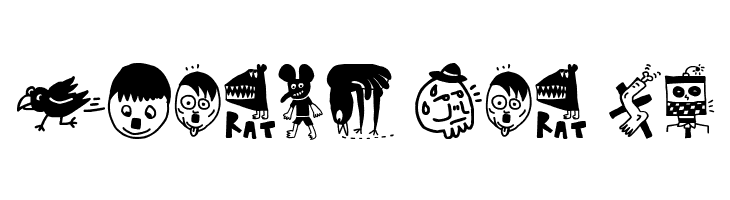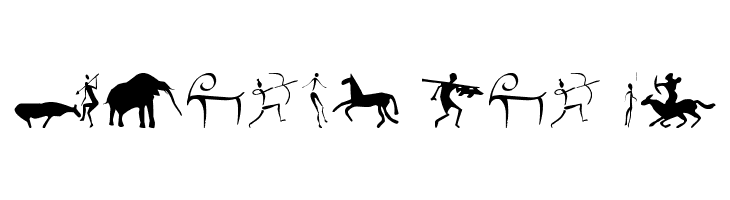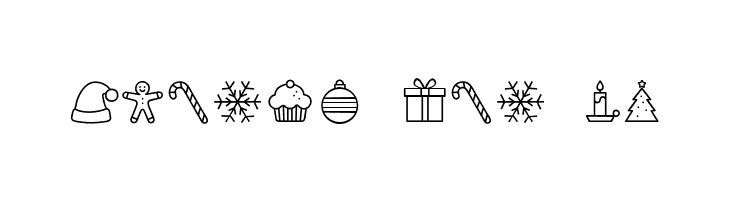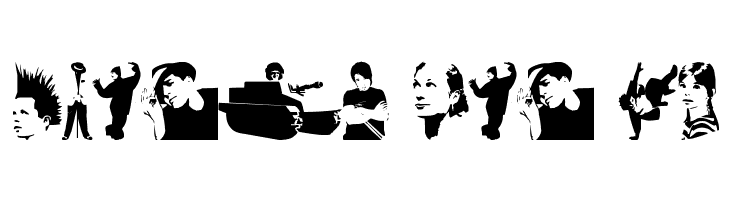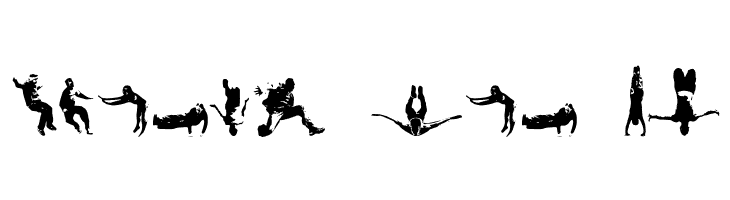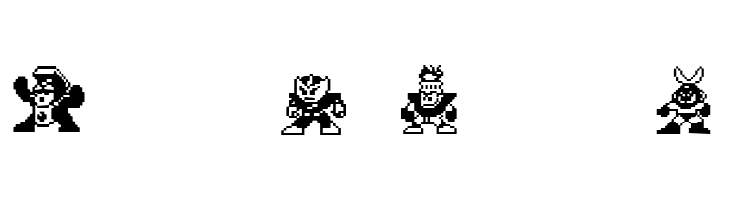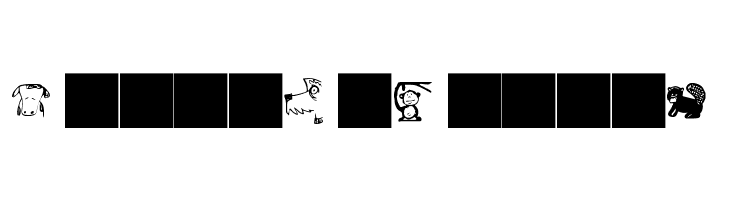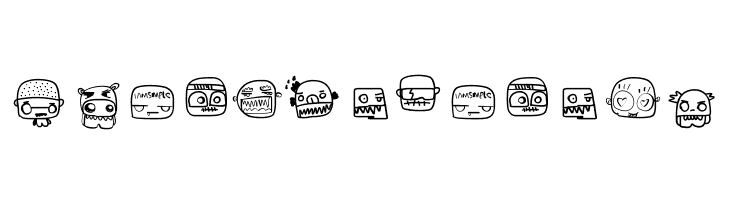
( Woodcutter - woodcutter Manero - www.woodcutter.es )
A whimsical and illustrative font with cartoonish, bold characters.
( Woodcutter - woodcutter Manero - www.woodcutter.es )
A pictorial, hand-drawn font inspired by prehistoric cave paintings.
( Zetafonts - www.zetafonts.com )
Outlined, festive Christmas icon set with consistent line style.
( cody - Codin Repsch )
Decorative stencil font using illustrated figures and objects as glyphs.
( coletivo NEGOBOM - Felipe Caroé - www.coletivonegobom.com )
Energetic display font made from parkour silhouettes.
( fontvir.us - xero harrison - fontvir.us )
Pixel-art decorative font with retro video game villain characters.
( g14296 )
Hand-drawn dingbat font with quirky animal and character icons.
Cartoon superhero-themed decorative font with bold, outlined characters.
Cartoon animal dingbat font with unique characters for each glyph.
( pixopop - Ali Sabet - www.pixopop.com )
A playful and whimsical decorative font with cartoon-like characters.